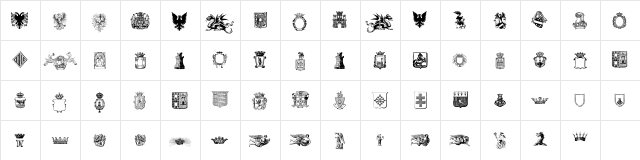
Free Medieval Regular
Design Context for Free Medieval Typeface
Free Medieval is a composed and adaptable typeface that performs quietly and consistently across a wide range of design contexts.